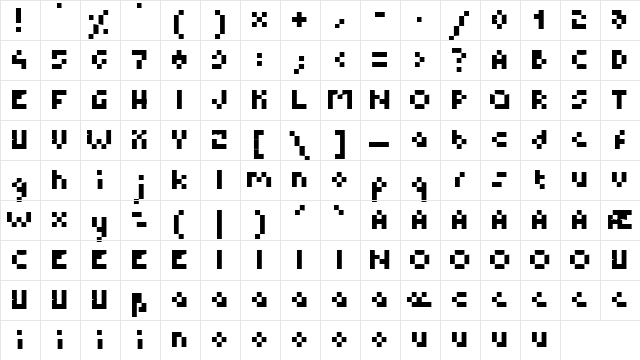
B.M. Pixel Medium
Design Context for B.M. Pixel Typeface
B.M. Pixel is rooted in pixel-grid construction, making it a natural fit for game UI, retro computing aesthetics, and digital nostalgia projects.
A natural choice for retro game titles, chiptune music branding, 8-bit UI, and digital nostalgia projects.
Pro Tip: Pair B.M. Pixel with flat colour palettes and simple geometric UI elements to reinforce its digital aesthetic.